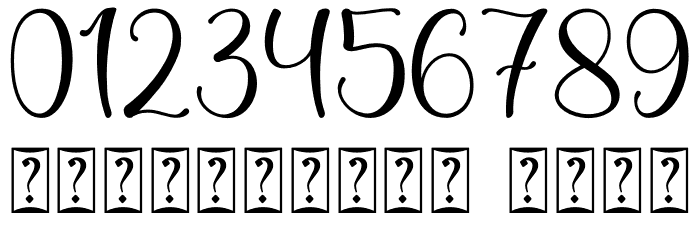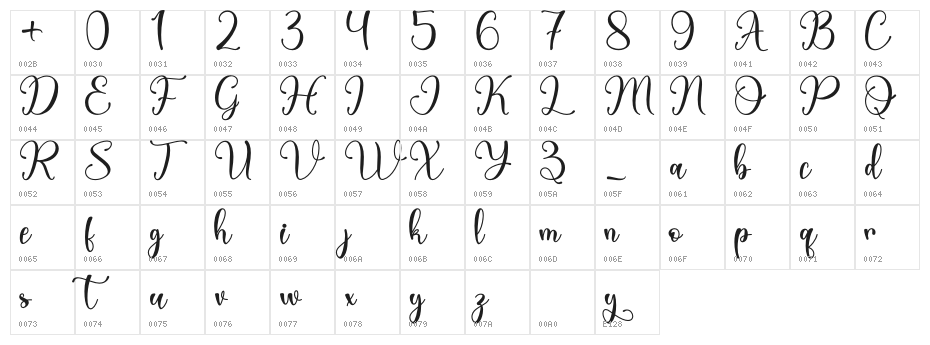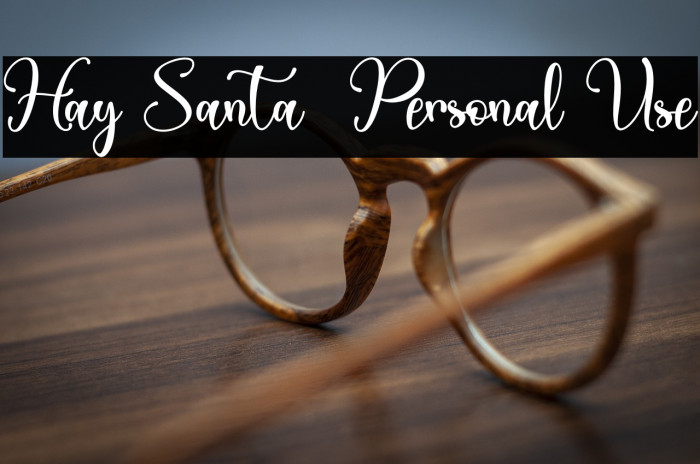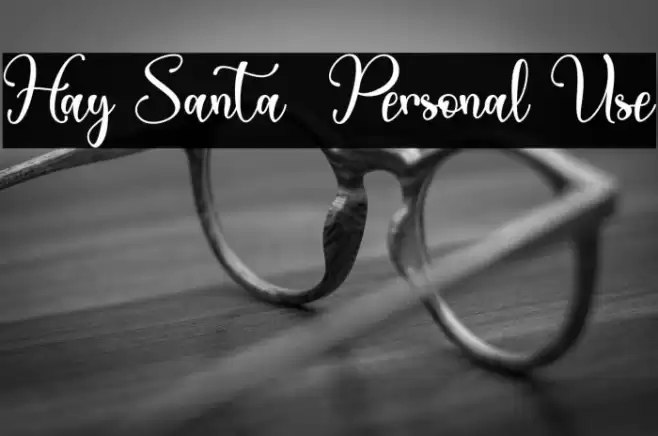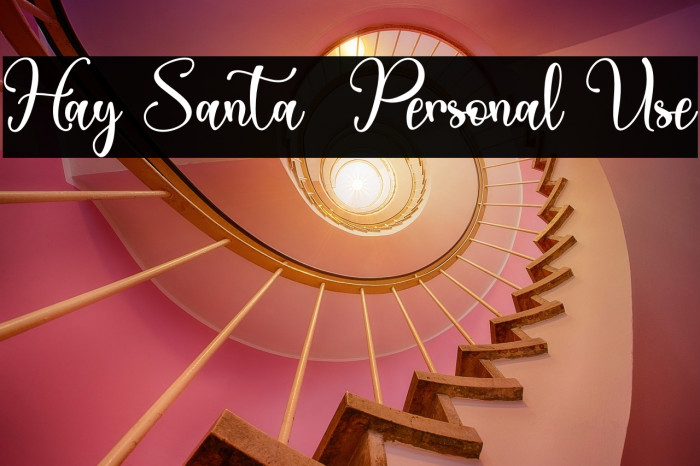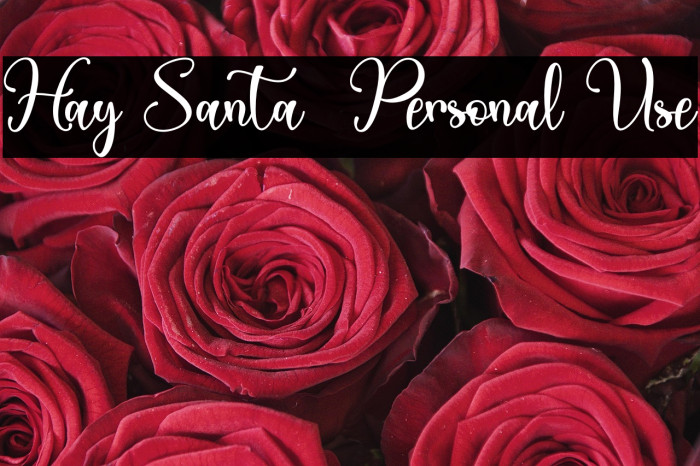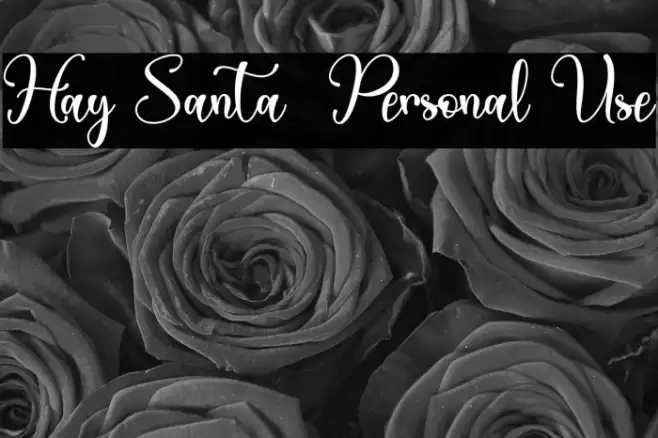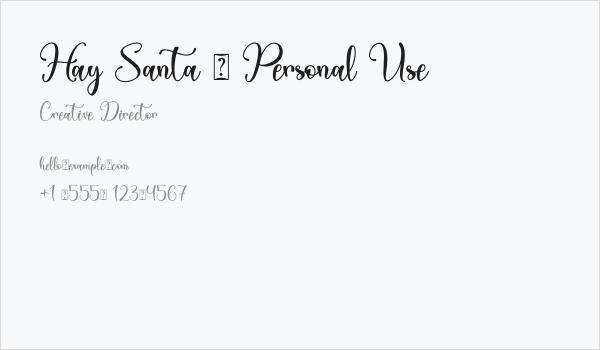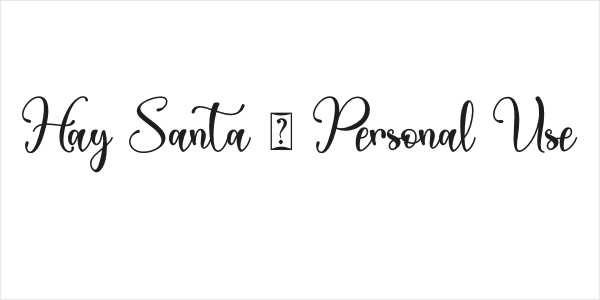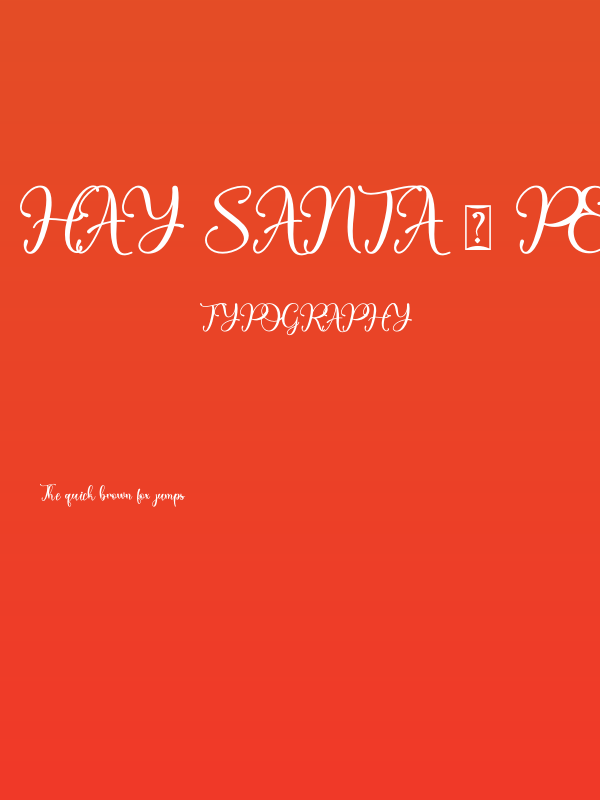
Hay Santa - Personal Use Font
Hay Santa - Personal Use Description
This font features a playful and elegant script style, characterized by its flowing, cursive letterforms. The uppercase letters are ornate, with loops and swirls that add a whimsical touch. The lowercase letters maintain a consistent flow, with some letters extending below the baseline, enhancing the font's decorative appeal. The numerals are bold and slightly rounded, complementing the overall style. The special characters are designed to match the script's aesthetic, making it suitable for festive and creative projects. The font's high contrast between thick and thin strokes adds to its dynamic and lively appearance.